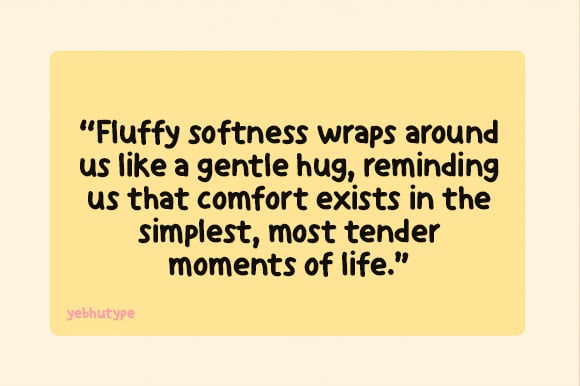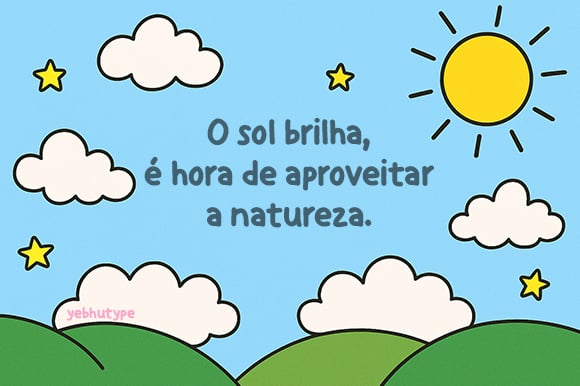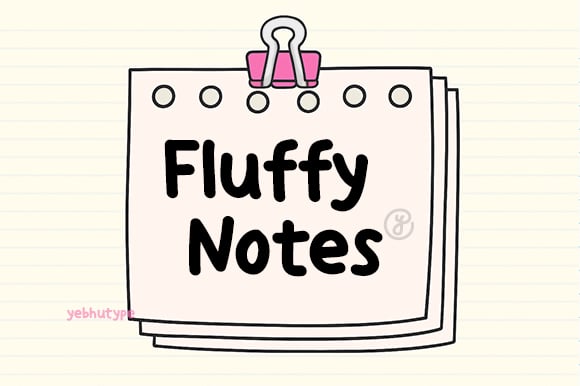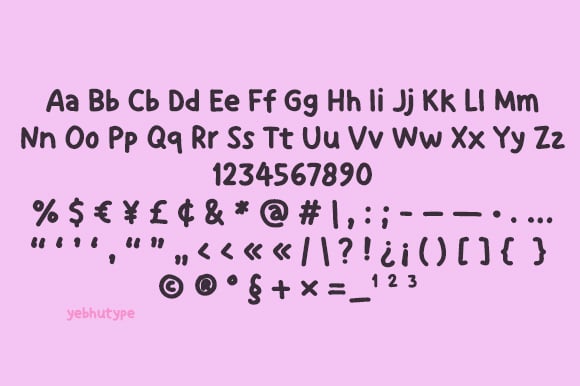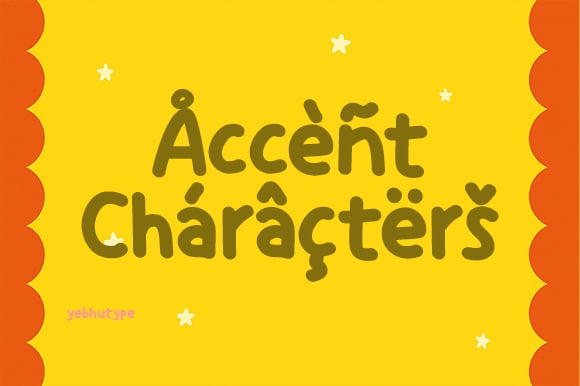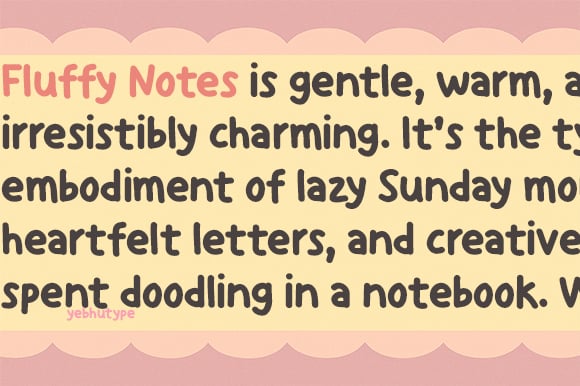
Fluffy Notes: A Gentle Whisper of Creativity for Every Thoughtful Moment
Introducing Fluffy Notes , a soft and inviting handwritten typeface that feels like a warm hug on paper. Inspired by the delicate charm of fluffy clouds, cozy mornings, and heartfelt notes scribbled in the margins of your favorite journal, this font is more than just typography—it’s an experience. With its plush curves, airy rhythm, and playful imperfections, Fluffy Notes captures the essence of comfort, creativity, and connection.
The Heart of Fluffy Notes
Fluffy Notes is a celebration of tenderness, authenticity, and personal expression. It embodies the joy of slowing down, savoring life’s little moments, and pouring your heart onto the page. Whether you’re crafting something whimsical, nostalgic, or deeply personal, Fluffy Notes brings warmth and sincerity to every design. It’s like rediscovering an old letter from a dear friend—full of charm, emotion, and a touch of magic.
Key Features
📝 Authentic Handwritten Style
Fluffy Notes feels natural and effortless, as if it were written with a soft pencil or a felt-tip pen. Its organic imperfections give it an inviting, relatable quality that resonates with human touch.
☁️ Soft, Rounded Letterforms
With pillowy curves and gentle edges, each character radiates kindness and approachability. Perfect for designs that aim to feel warm, friendly, and comforting.
🎨 Playfully Imperfect
Subtle variations in stroke weight and spacing make Fluffy Notes feel alive and personal. These handcrafted details set it apart from sterile, overly polished fonts.
📚 Highly Legible & Versatile
Despite its casual tone, Fluffy Notes remains clear and easy to read at various sizes, making it ideal for both headlines and body text. It works seamlessly across print and digital platforms.
🔤 Complete Character Set
Includes uppercase, lowercase, numerals, punctuation, and multilingual support, ensuring cohesive and expressive typography for all your creative projects.
Mood & Personality
Fluffy Notes is gentle, warm, and irresistibly charming. It’s the typographic embodiment of lazy Sunday mornings, heartfelt letters, and creative afternoons spent doodling in a notebook. Whether you’re aiming to evoke nostalgia, create connection, or simply add a touch of sweetness, Fluffy Notes brings a lighthearted, comforting tone that’s hard to resist.
Perfect For
📘 Children’s Books & Learning Materials
Make reading and learning fun with Fluffy Notes’ friendly charm. Perfect for titles, captions, or storybook dialogue that feels inviting and engaging.
🎉 Greeting Cards & Party Invitations
From birthdays to baby showers, Fluffy Notes adds a personal, heartfelt touch that makes every message feel special.
👨‍👩‍👧 Family-Oriented Branding
Toy brands, parenting blogs, and educational products can use Fluffy Notes to create an emotional, trustworthy connection with their audience.
📱 Social Media Graphics & Content Creation
Stand out online with a font that feels real, warm, and engaging. Ideal for quote graphics, captions, and creative posts that spark joy.
🖌️ DIY Projects & Personal Keepsakes
Whether you’re designing planners, stickers, journals, or scrapbooks, Fluffy Notes adds a magical, memorable flair to every page.
Why Choose Fluffy Notes?
In a world of polished perfection, Fluffy Notes brings back the beauty of imperfection and the joy of handmade creativity. It’s sincere, it’s nostalgic, and it’s full of heart. Whether you’re crafting something playful, professional, or deeply personal, Fluffy Notes makes your message feel more human and heartfelt. Because sometimes, the most powerful designs come from the simplest, most genuine places.
Let Your Designs Speak with Warmth
With Fluffy Notes , every word feels like a note from a friend—soft, sincere, and full of life. Let it inspire designs that bring smiles, stir memories, and spark imagination.
P.S.: Fluffy Notes isn’t just a font—it’s a feeling. A little warmth. A little wonder. And a whole lot of heart.